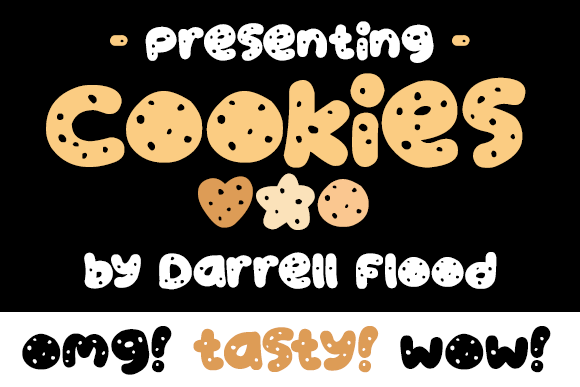
Welcome to the world of Cookies Font, a delightful display font family that will add a touch of sweetness and charm to your creative projects. Inspired by the irresistible allure of freshly baked cookies, Cookies Font captures the essence of culinary joy and transforms it into a typographic masterpiece.
Indulge in the sugary goodness of Cookies Font, and let your words dance across the screen like a delectable treat. This font is a perfect companion for any project related to cooking, baking, or sweet treats. Its playful and whimsical style will tickle your taste buds and leave your audience craving more.
With Cookies Font, you'll have the perfect ingredient to elevate your posters, flyers, greeting cards, and social media posts. Its unique and eye-catching design will make your messages stand out from the crowd, leaving a lasting impression on your readers.
But don’t limit yourself to the kitchen! Cookies Font's versatility goes beyond culinary delights. Use it to create enchanting invitations, joyful party decorations, or even heartfelt love letters. Its charming personality will add a touch of warmth and happiness to any project you undertake.
In the realm of digital design, Cookies Font is a true standout. Its crisp and clean lines ensure that your words will be legible and visually appealing, even on high-resolution screens. Whether you're crafting a website, designing an app, or creating digital marketing materials, Cookies Font will make your content shine.
So, why settle for ordinary fonts when you can have Cookies Font? Its delectable design, coupled with its versatility and charm, makes it the perfect choice for anyone looking to add a touch of sweetness to their digital creations.